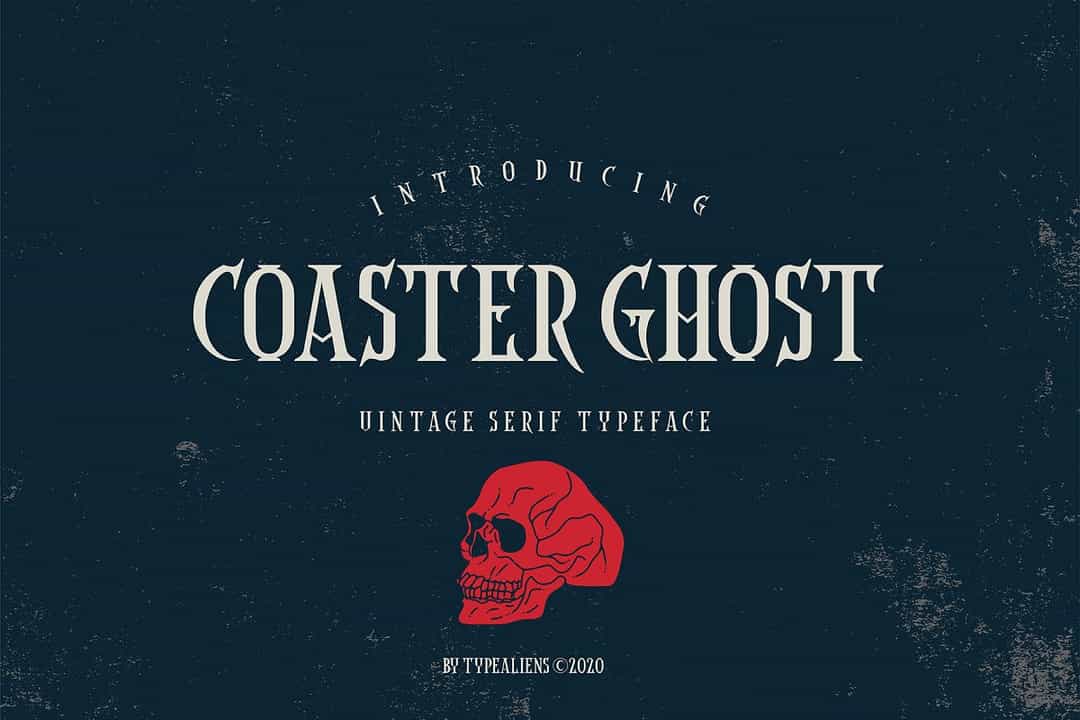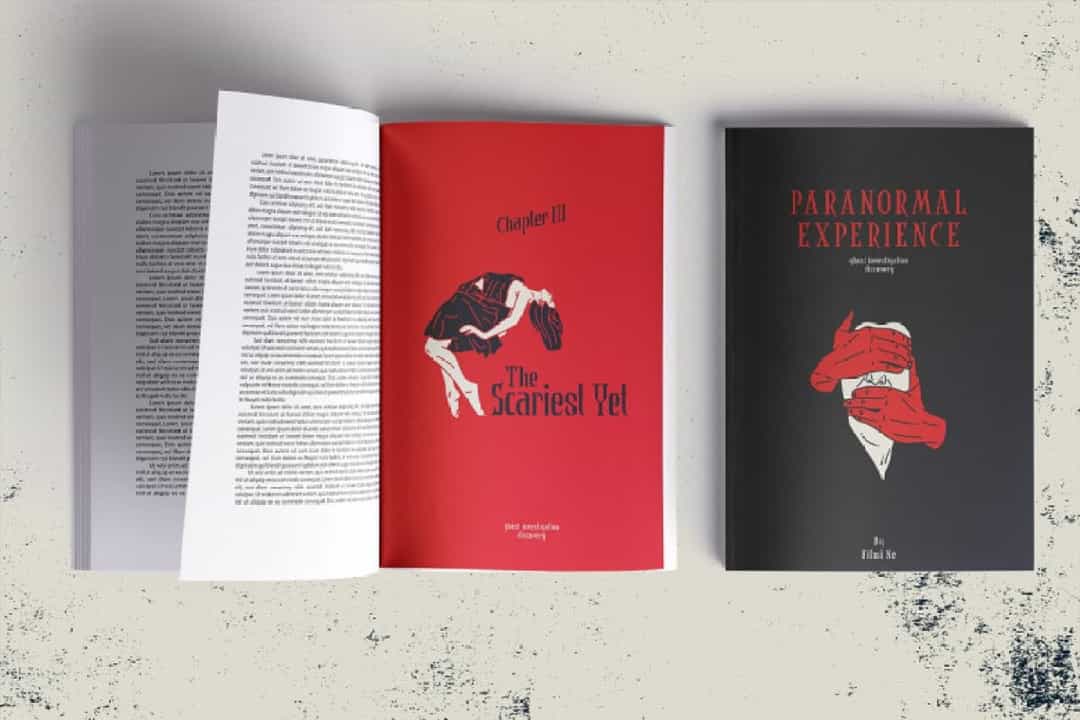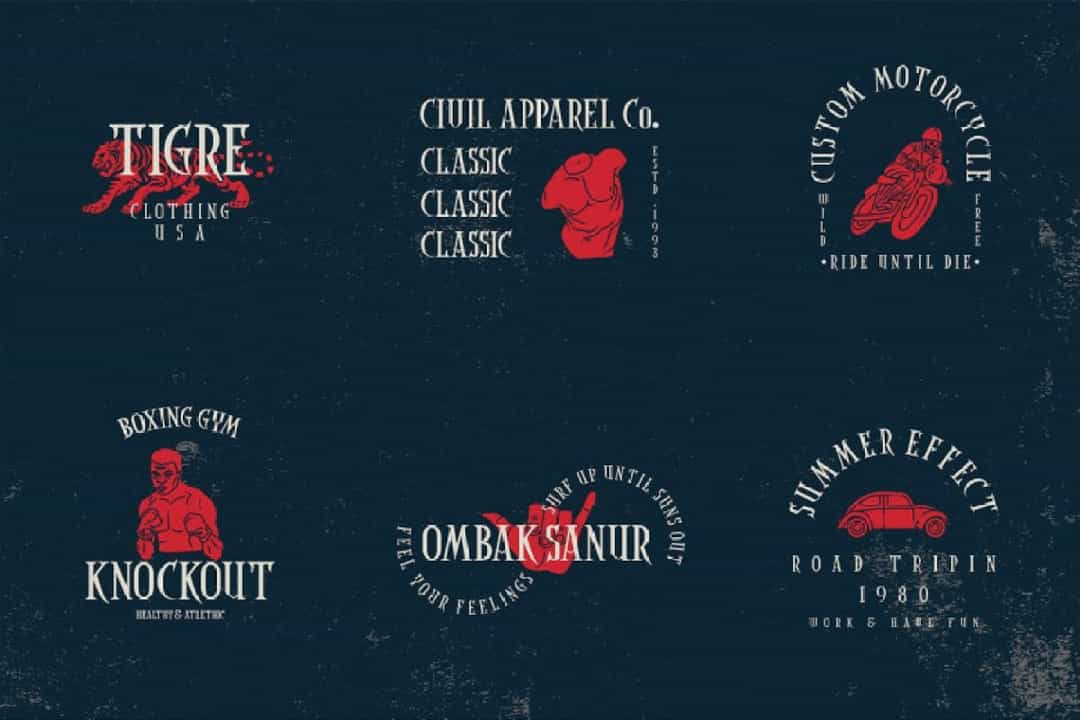
Coaster Ghost is serif type font that is very rigid, and ideal for badge design and also for logo design, logotype as a title font or as a support font. Its stiffness makes the font is a bit retro, and certainly gothic.